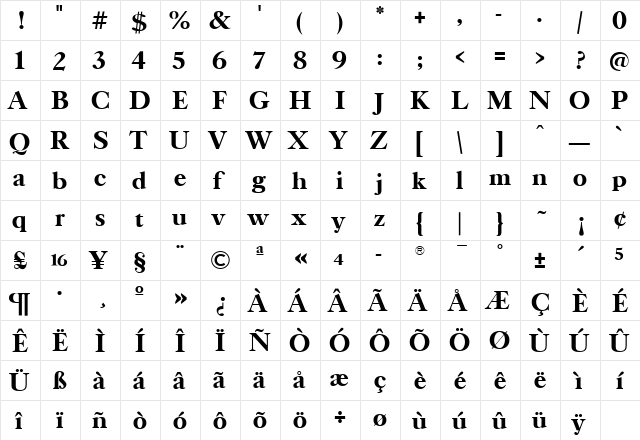
TFCaslonTen Extrabold Font Preview
TFCaslonTen Extrabold
Design Context for TFCaslonTen Typeface
TFCaslonTen takes a measured approach to typography — its balanced proportions and neutral character make it a reliable workhorse for both digital and print work. Its bold stroke weight gives it real presence on the page.